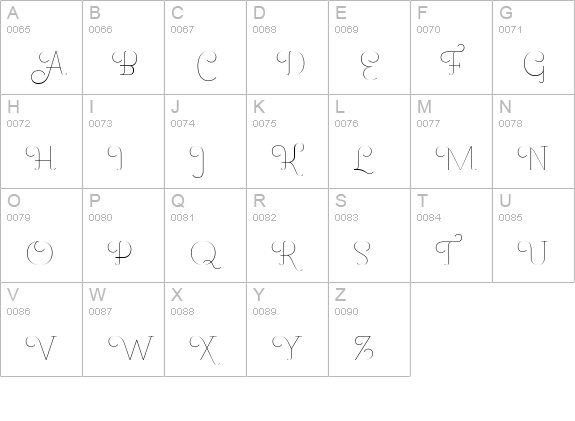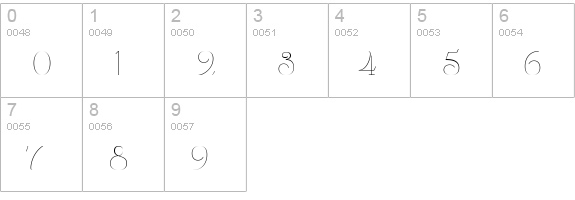
Pauline Didone Thin Font Details
Pauline Didone Thin is a delicate, low-contrast variant in the Pauline typeface family \xE2\x80\x94 well suited to fashion editorial, minimal branding, and high-contrast display.
Pauline Didone Thin font is a sleek and elegant typeface that exudes sophistication and modernity. With its delicate lines and refined letterforms, this font is perfect for adding a touch of luxury to your projects. The thin weight of the font gives it a delicate and graceful appearance, making it ideal for use in fashion, beauty, and luxury branding. What makes Pauline Didone Thin font even more appealing is that it is available for free download at FontsMarket.com. This means that you can easily access and use this beautiful typeface in your designs without any cost. Whether you're working on a website, brochure, poster, or any other design project, Pauline Didone Thin font will add a touch of elegance and sophistication that will make your work stand out. Don't miss out on this opportunity to enhance your designs with this exquisite font - download it for free today at FontsMarket.com!